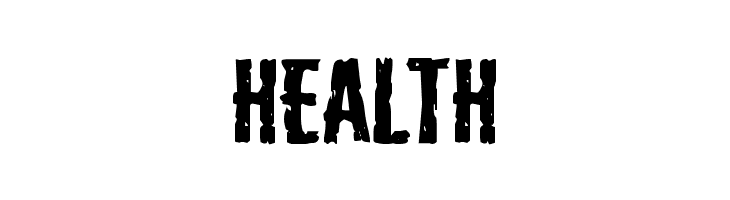
Carnivalee Freakshow Font
Font by Christopher Hansen
A bold, decorative font with a vintage circus theme and ornate, distressed edges.
Carnival Rimmed Font
Font by Rick Mueller
A bold, decorative font with a playful, vintage carnival theme.
Carnivale Font
A bold, decorative display font with playful geometric designs and intricate details.
Carnivalee Freakshow Demo Font
A bold, decorative font with a vintage circus flair.
CarnivalMF OpenShadow Font
Font by Rick Mueller
A playful, bold font with an open shadow effect and vintage carnival style.
JD Carnival Black Font
TypeSETit
A bold, playful font with a vintage carnival vibe and high contrast strokes.
Super Carnival Font
Font by fsuarez913
A bold, playful font with rounded, whimsical characters ideal for energetic designs.
Carnival Corpse Expanded Rotalic Font
Font by Iconian Fonts
A bold, distressed, and expanded italic font with a grunge texture.
Carnival Corpse Font
Font by Iconian Fonts
A bold, distressed font with a vintage, hand-crafted appearance.
Carnival Corpse Expanded Font
Font by Iconian Fonts
A bold, distressed font with a vintage carnival or horror theme.
Carnival Corpse Extra-Expanded Font
Font by Iconian Fonts
A bold, distressed font with a vintage carnival and horror theme.
Carnival Corpse Condensed Font
Font by Iconian Fonts
A bold, condensed, distressed font with a vintage, grunge aesthetic.
Carnival Corpse Shadow Font
Font by Iconian Fonts
A bold, shadowed font with a distressed, horror-themed style.
Carnival Corpse Super-Italic Font
Font by Iconian Fonts
A bold, distressed, and heavily slanted font with a grunge aesthetic.
Carnival Trash Font